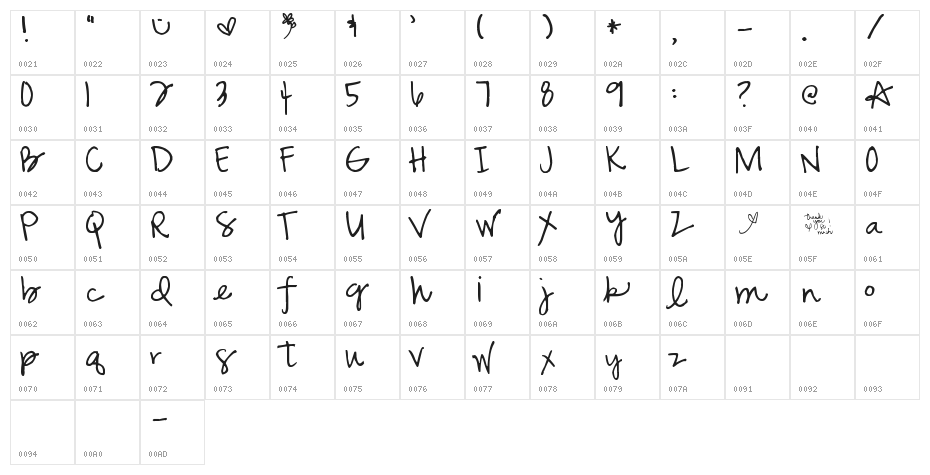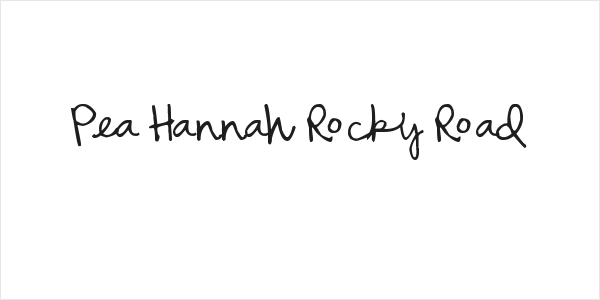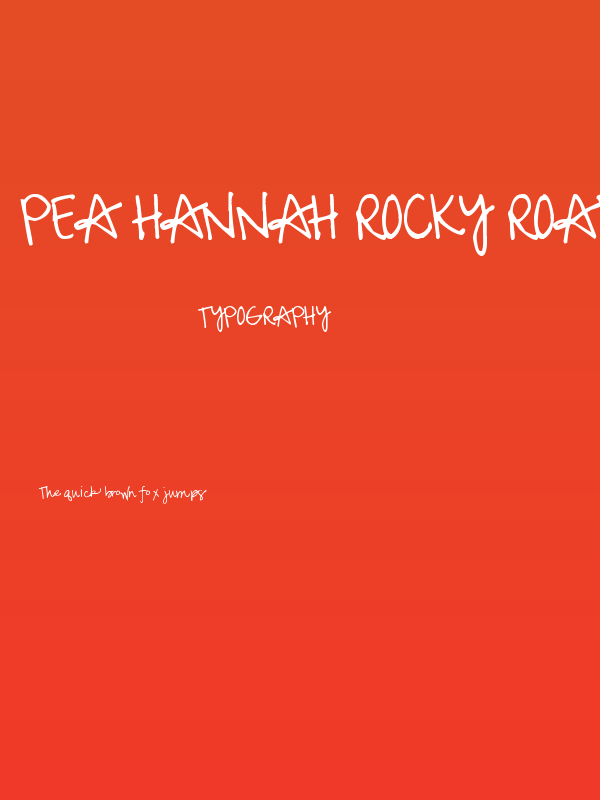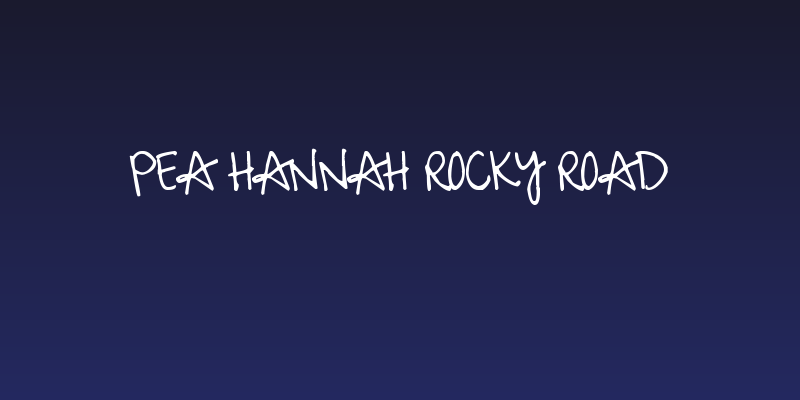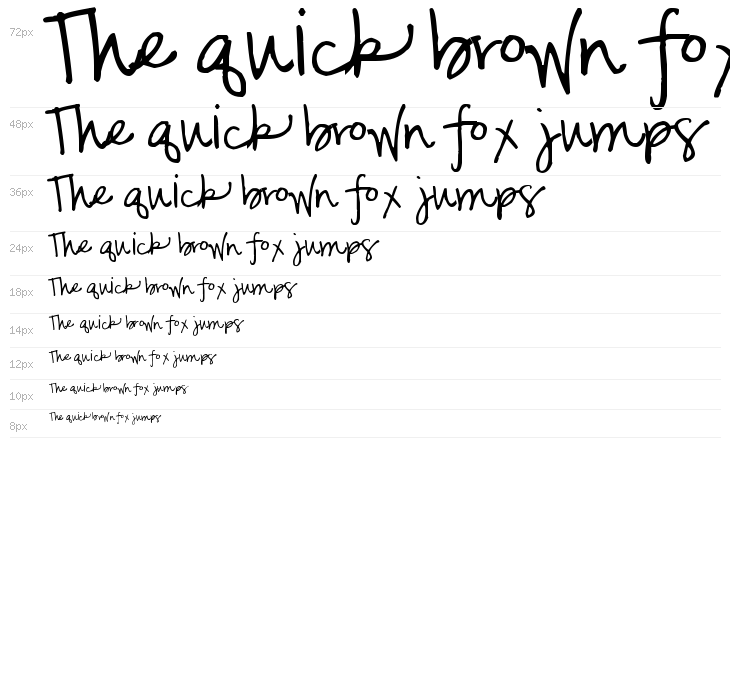
Pea Hannah Rocky Road Font
Pea Hannah Rocky Road Description
This font exudes a playful and casual handwritten style, characterized by its loose and flowing strokes. The letters are slightly irregular, giving it an authentic, personal touch reminiscent of a quick note or a casual letter. The uppercase and lowercase letters maintain a consistent style, with a slight slant that adds to its informal appeal. The numbers and special characters follow the same handwritten aesthetic, ensuring a cohesive look across all characters. This font is perfect for projects that require a personal, friendly, and approachable feel.
Overall StyleCasual
Use CaseLogos, Headlines, Informal Text
Proposed ProjectsIdeal for greeting cards, personal notes, informal invitations, and playful branding.